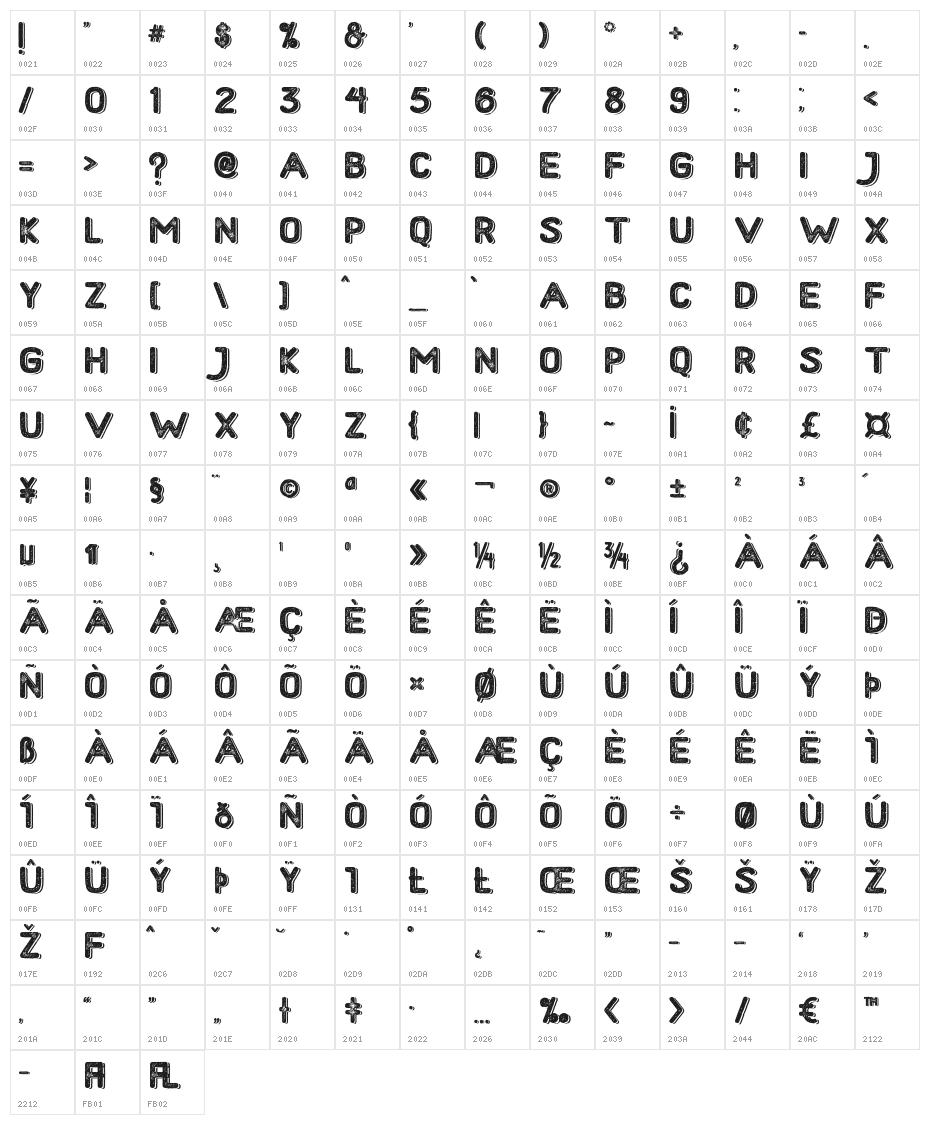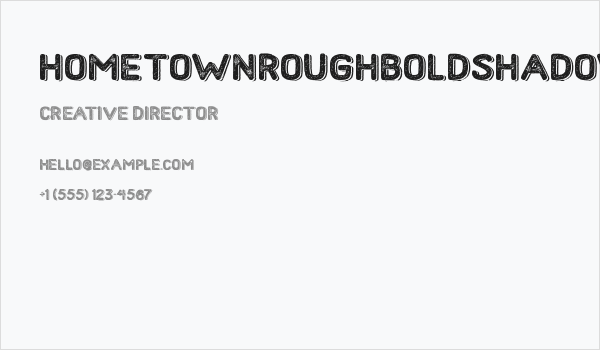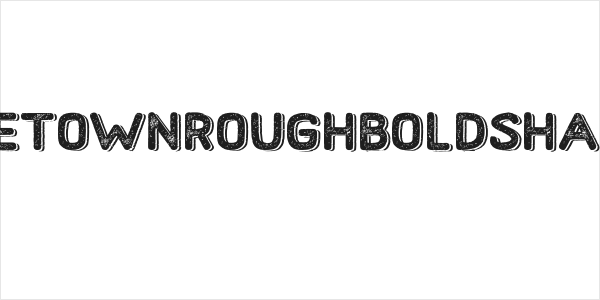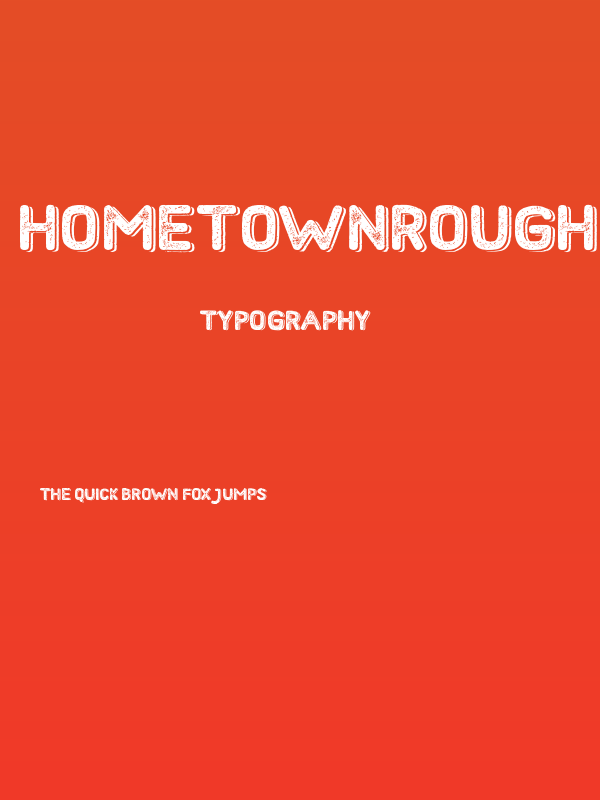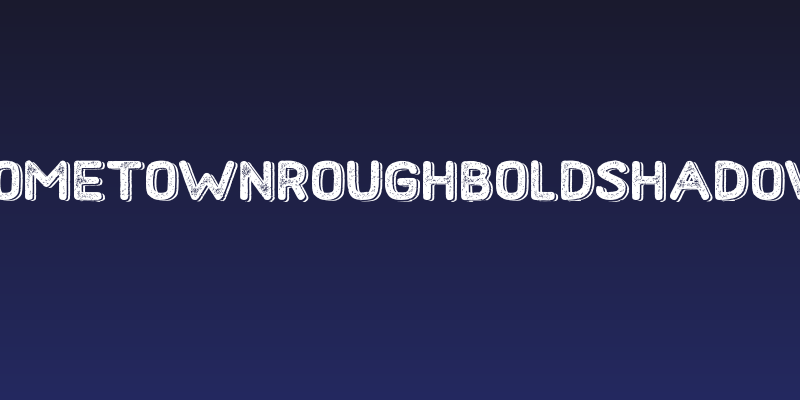
HometownRoughBoldShadow Font
HometownRoughBoldShadow Description
This font features a bold, rough texture with a shadow effect that gives it a rugged, vintage appearance. The uppercase and lowercase letters are designed with a distressed look, adding character and depth. The numbers and special characters maintain this style, ensuring consistency across all glyphs. The font's boldness and shadow create a strong visual impact, making it ideal for designs that require a touch of nostalgia or a handcrafted feel. Its unique style is perfect for projects that aim to stand out with a bold statement.
| Proposed Projects | Ideal for vintage posters, retro branding, t-shirt designs, and rustic-themed invitations. |